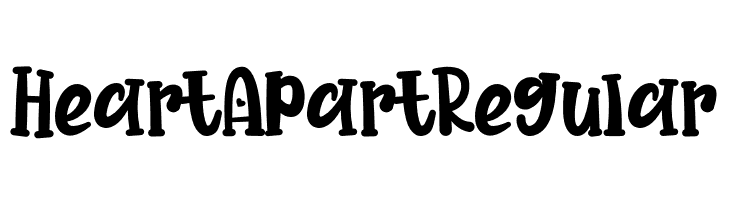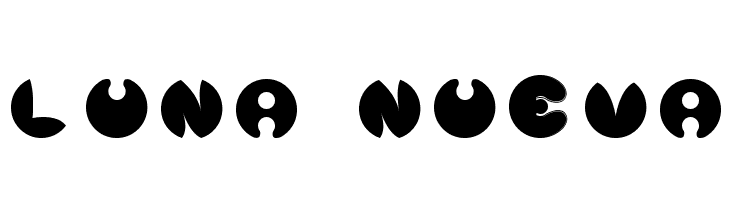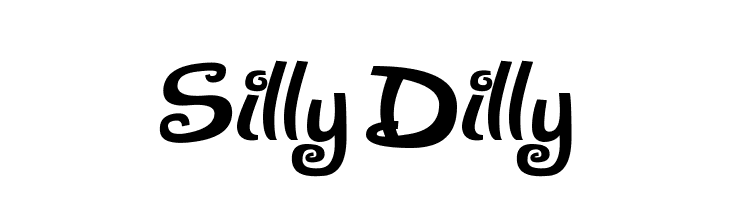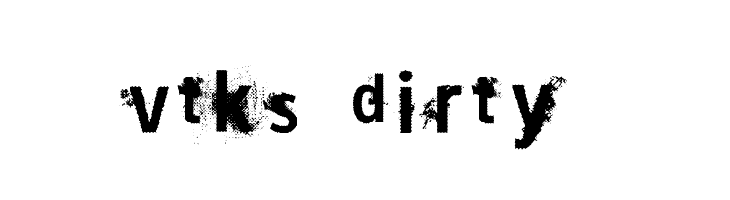
A sleek, italicized font with a modern and dynamic style.
A bold, geometric font with a futuristic and blocky design.
A bold, futuristic font with sharp, angular edges and a geometric structure.
A bold, vintage-style font with a Western flair and distinctive cutouts.
A bold, geometric font with strong, modern letterforms.
An elegant script font with ornate swirls and decorative flourishes.
A bold, distressed font with a gritty, hand-painted style.
A playful, informal handwritten font with a casual and friendly style.